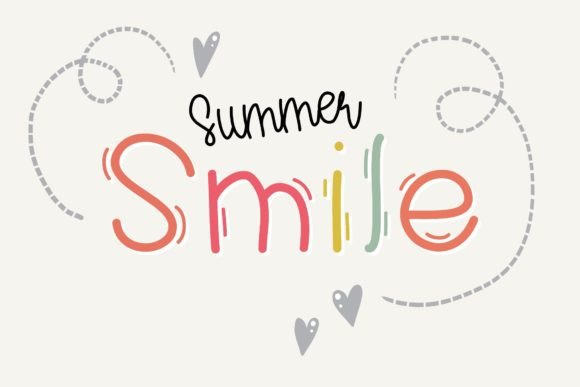
Summer Smile Font by 18CC FONTs is the perfect choice for anyone looking for the Best Font For Small Web Text. This decorative font family is not only cute but also offers a touch of elegance and sophistication to your creative projects.
With its unique handwriting style and subtle lines, Summer Smile Font is the perfect fit for all your branding needs. Whether you are designing a logo, creating social media graphics, or working on a crafty DIY project, this font is sure to make your work stand out.
Don't settle for boring fonts that lack personality and character. Summer Smile Font offers a fun and playful vibe that will add a touch of joy to any design. This font is perfect for those who want to add a personal touch to their work and stand out from the crowd.
But Summer Smile Font is not just about looks. It also performs exceptionally well on small web text, making it the perfect choice for web designers and developers who are looking for a font that is both visually appealing and easy to read.